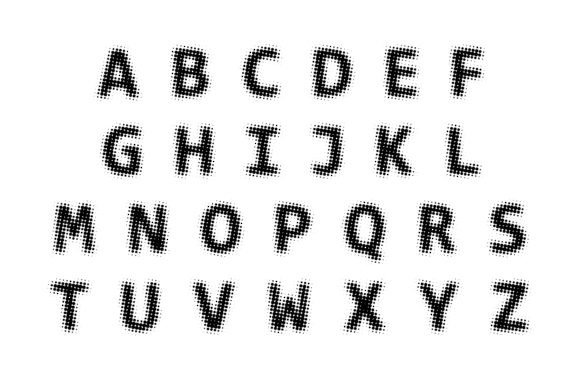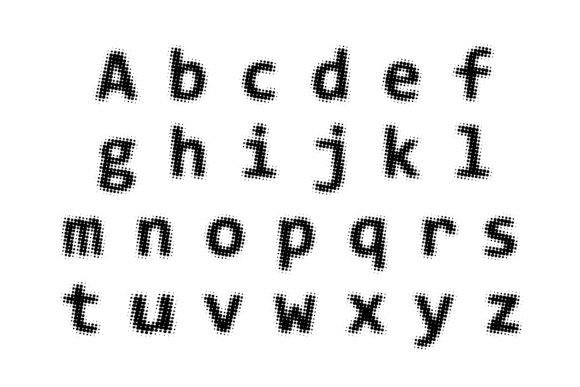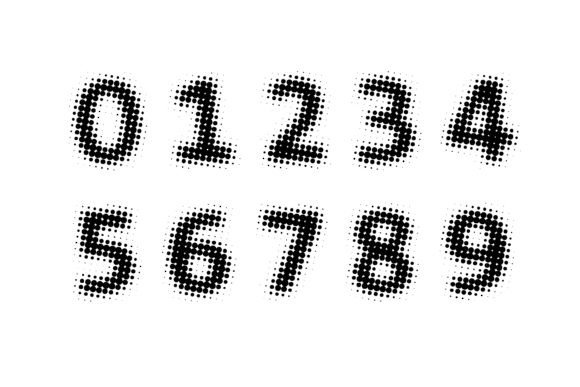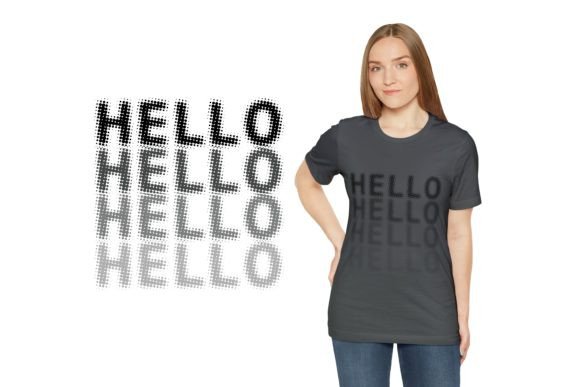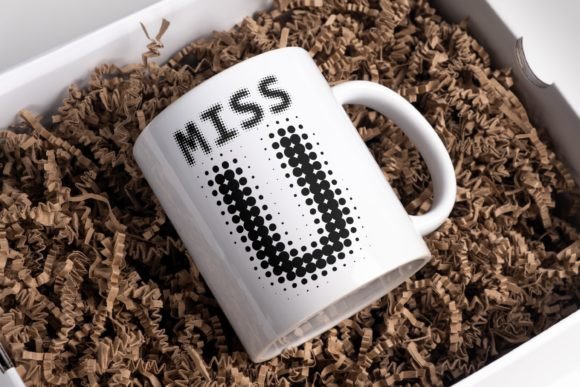
Introduction to Halftone Font
Step back in time with this Vintage Halftone Font Collection.
This unique font is inspired by classic halftone printing techniques, adding a touch of nostalgia and authenticity to your design projects Each letter is meticulously crafted to showcase the iconic halftone effect, perfect for posters, retro logos, t-shirts, and more.
Key Features of Halftone Font
Why Choose Halftone Font?
Halftone Font offers exceptional quality and versatility, making it a valuable addition to your design toolkit. Whether you’re creating for personal projects or commercial use, Halftone Font delivers professional results.